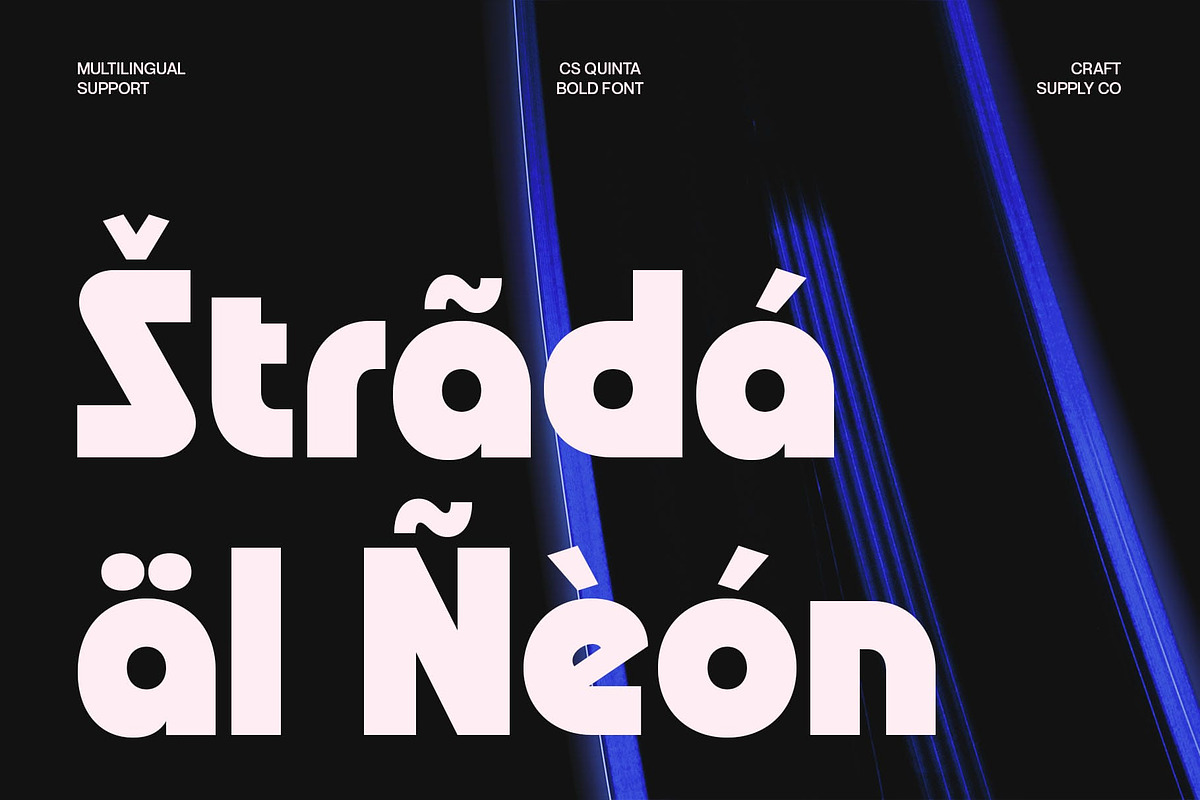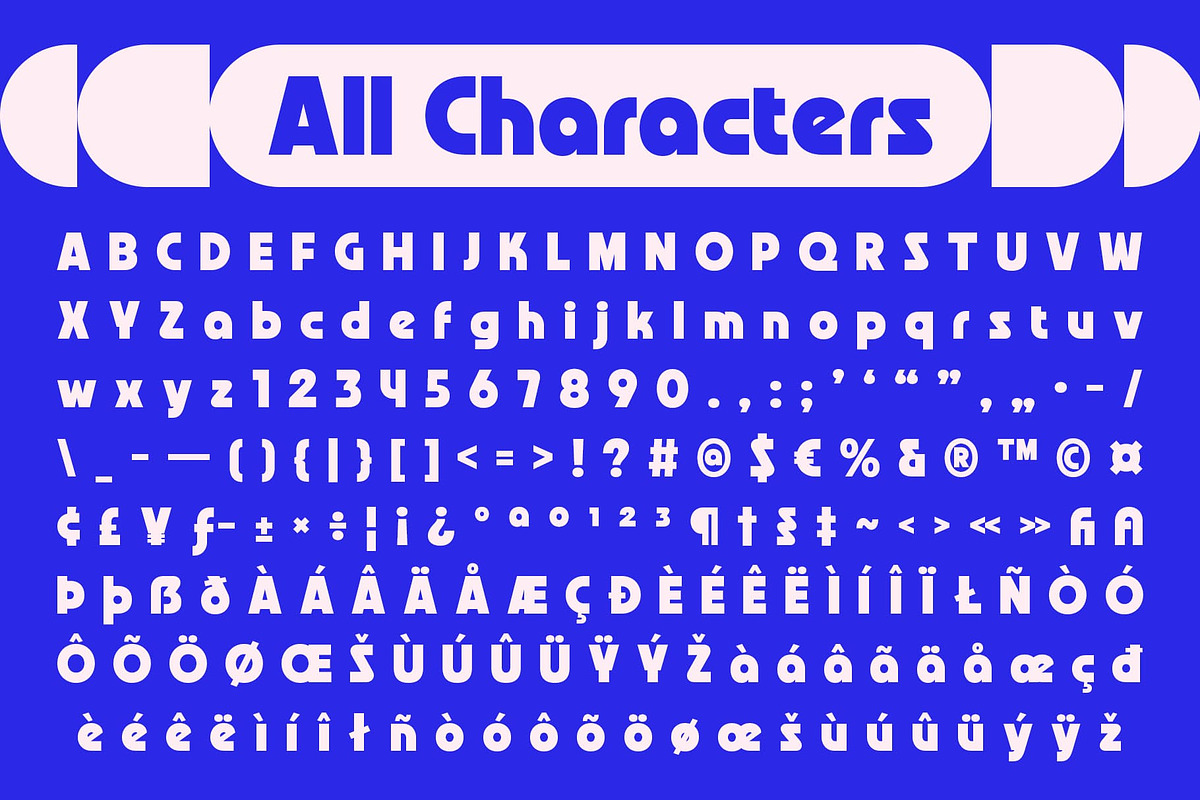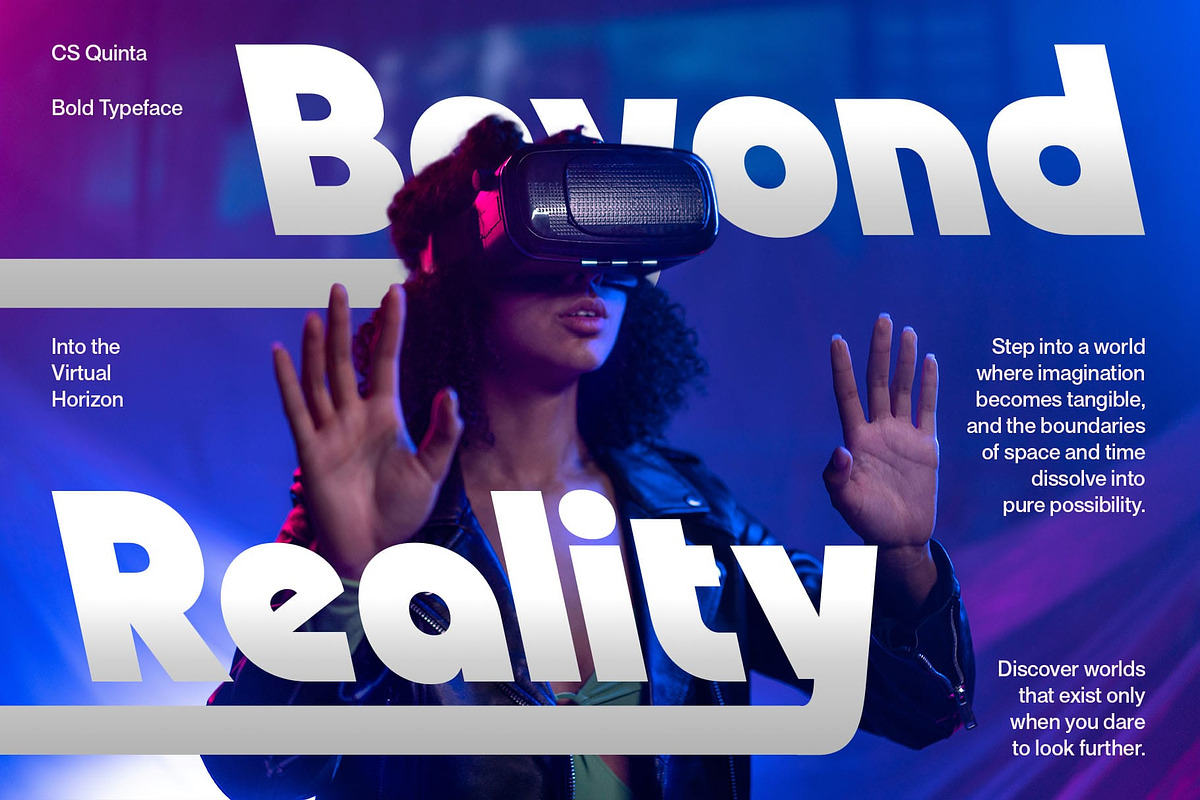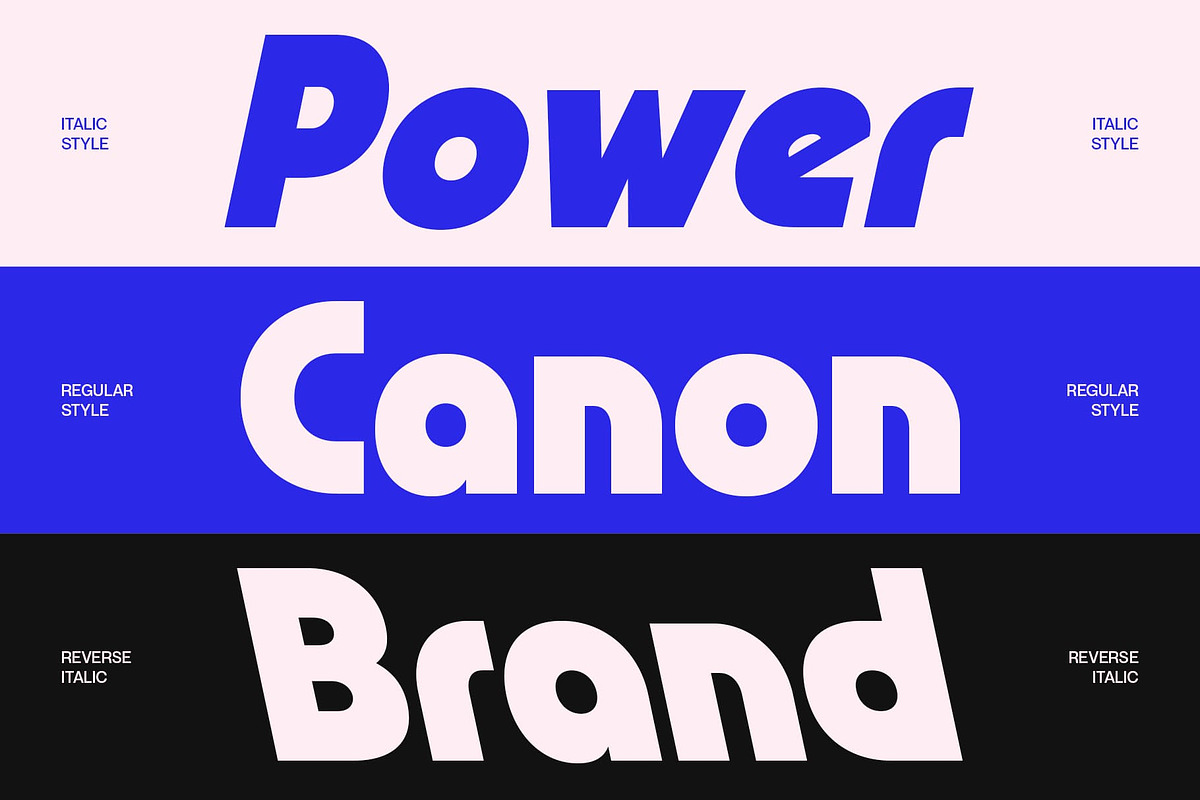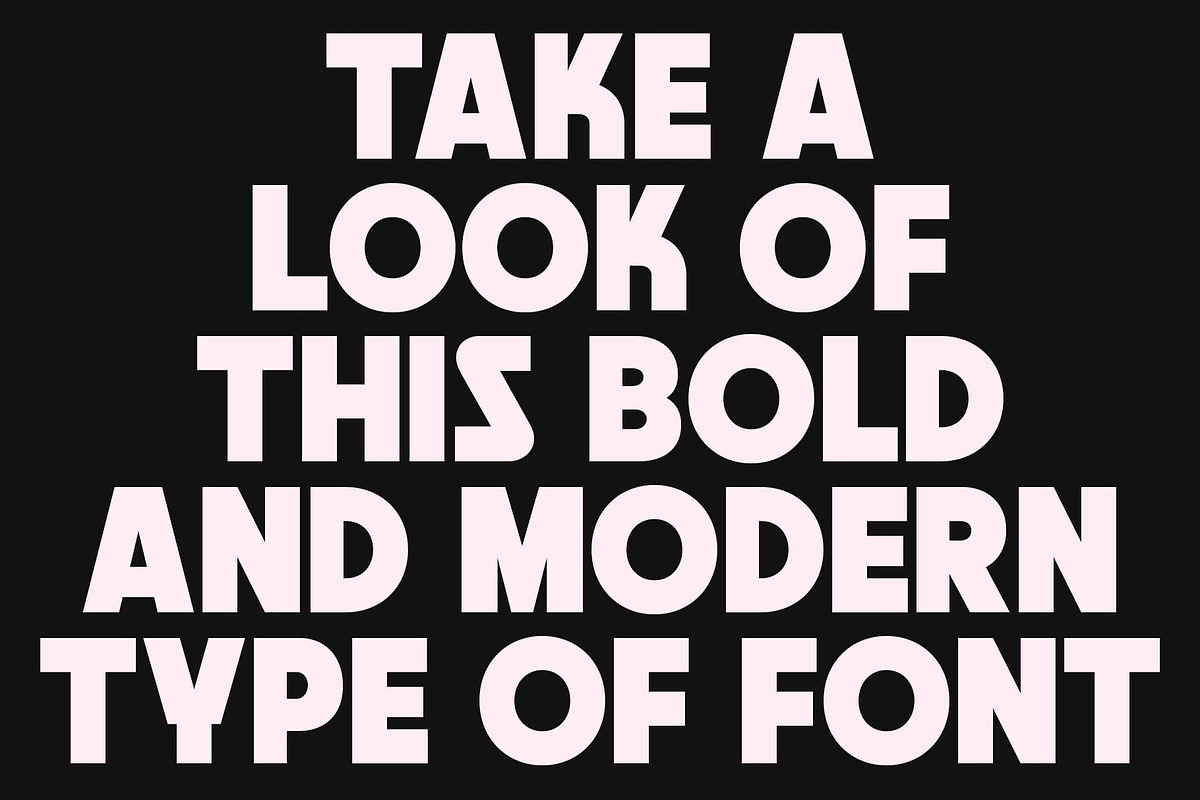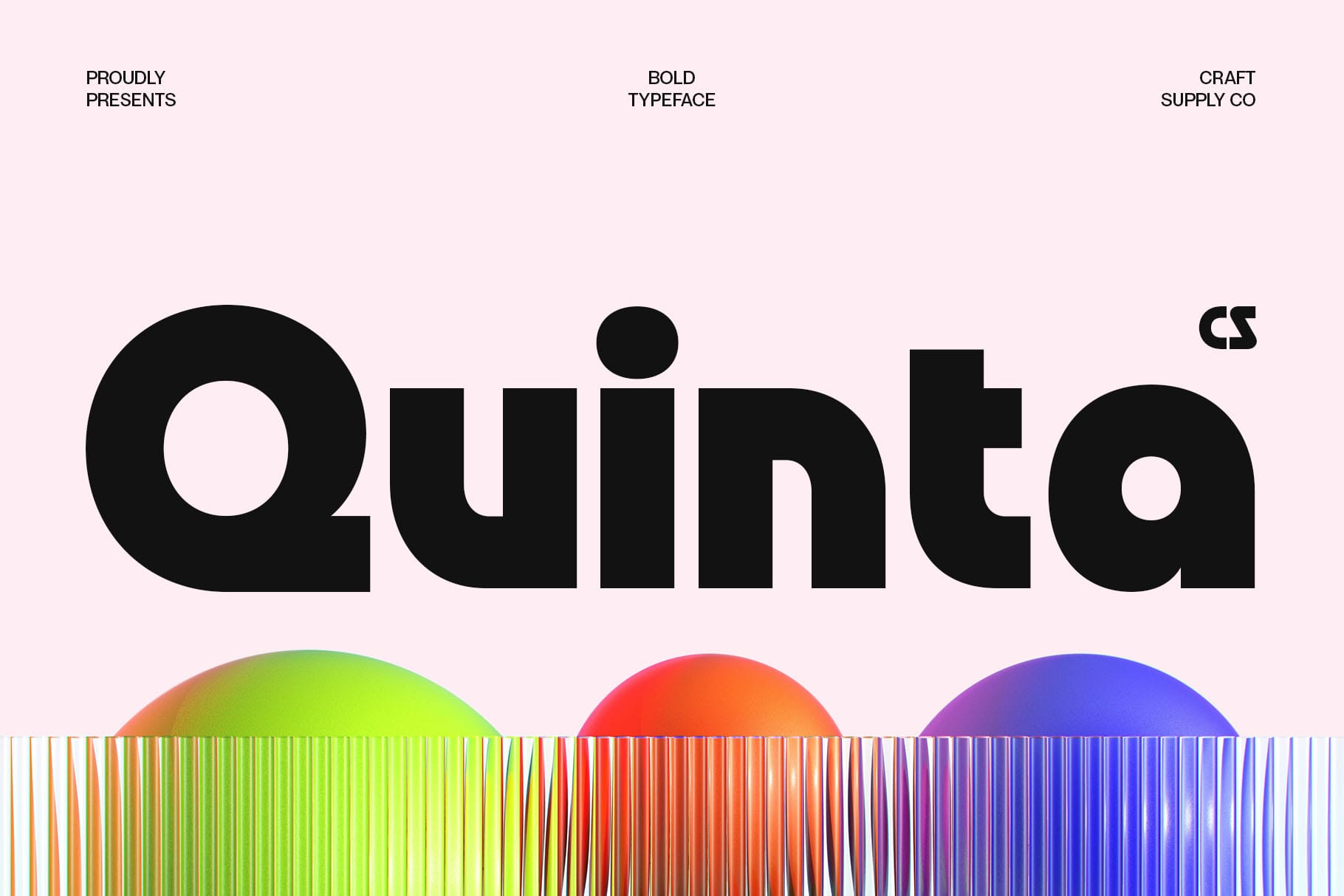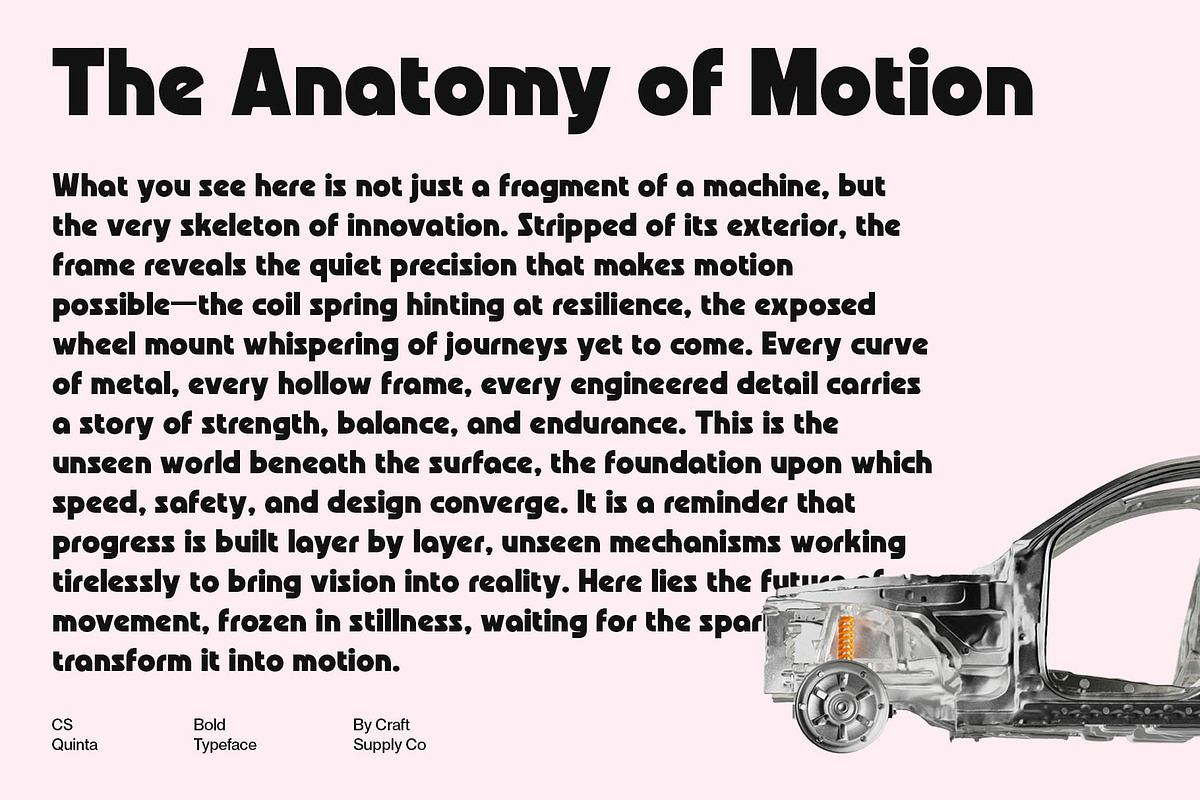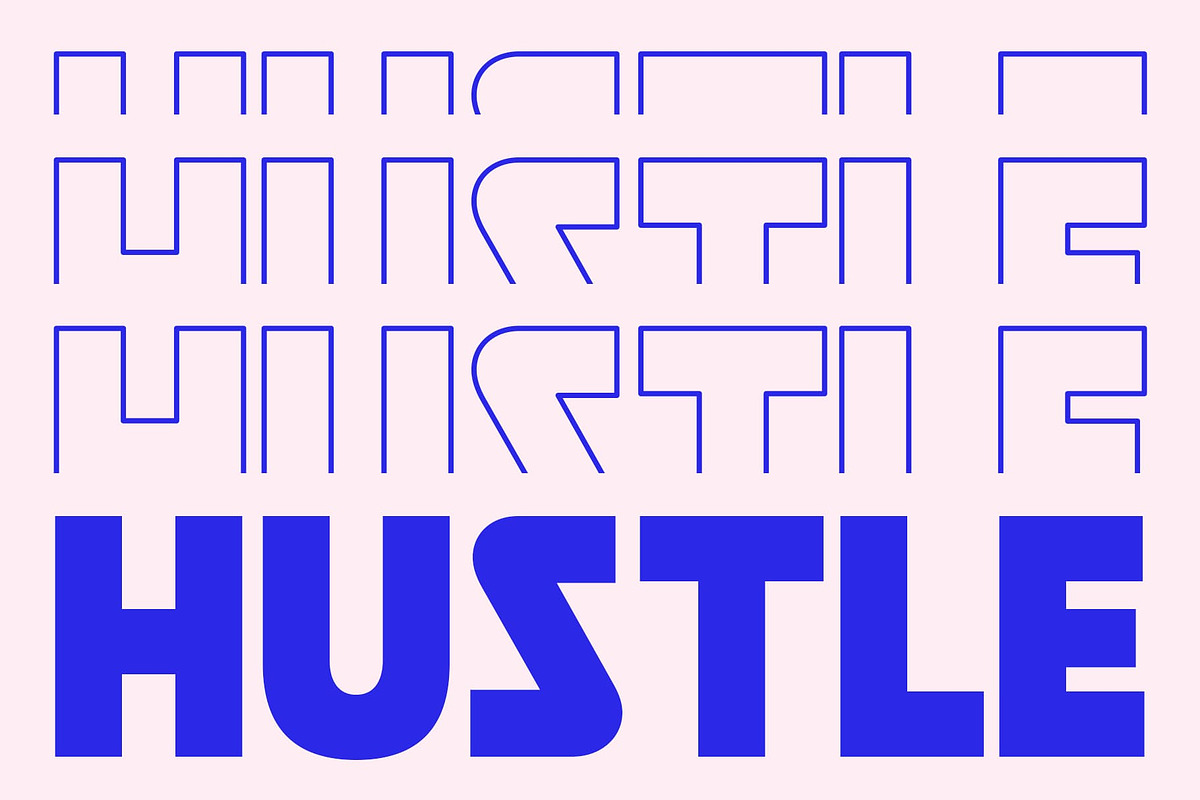
CS Quinta – Bold Font
CS Quinta – Bold Font: Modern Techno Boldness with Funky Energy
Bold Modern Sans Serif with Techno Flair CS Quinta – Bold Font is a modern sans serif font featuring bold, clean, and techno-inspired shapes. Its structured letterforms convey strength and clarity, while the geometric and futuristic influences give it a dynamic and contemporary edge.
Funky and Unique Character Beyond its bold, modern foundation, CS Quinta adds a funky, expressive touch that gives each character personality and energy. This playful detail ensures the font feels lively and memorable, standing out in designs that seek originality and impact.
Ideal for Creative and Energetic Projects CS Quinta is perfect for projects that demand modernity, energy, and eye-catching visuals. It excels in posters, logos, branding, and brand names, transforming ordinary layouts into designs that grab attention and leave a strong impression.
Balanced Boldness and Readability While bold and visually striking, CS Quinta maintains excellent readability and clean proportions, making it versatile for a variety of creative applications. Its techno-inspired geometric structure allows for high impact without sacrificing clarity or style.
Versatile, Energetic, and Modern CS Quinta – Bold Font combines strength, modern aesthetics, and playful uniqueness, making it ideal for designers who want to create dynamic, attention-grabbing, and visually distinctive projects. Its bold, funky style ensures your work stands out in any medium.
- CS Quinta Regular
- CS Quinta Italic
- CS Quinta Reverse Italic